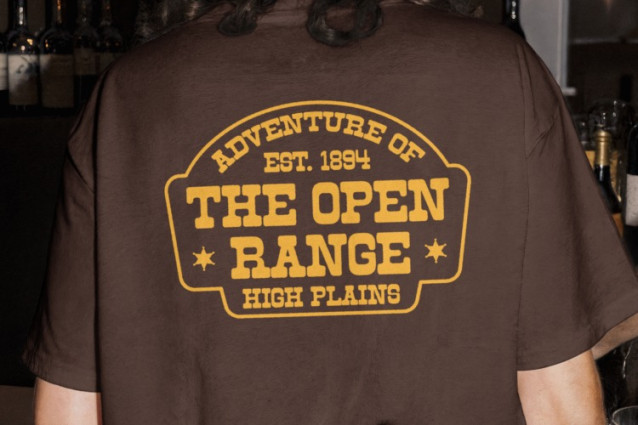
Buffaroa Font
Buffaroa Font is a sturdy and characterful retro slab serif typeface that channels the dependable, industrial spirit of 19th-century typography with a clean, contemporary refinement. Featuring solid, block-like serifs and hearty letterforms, it delivers a sense of durability, trust, and timeless confidence. This is a workhorse font with personality, built for impact and longevity. Designed for modern versatility, Buffaroa comes in both authoritative Regular and dynamic Italic styles, and includes comprehensive multilingual support, making it a truly global design asset. Perfect for brands that want to project strength and heritage—think breweries, artisan goods, editorial headlines, and branding for robust products—Buffaroa ensures your message stands firm and clear, with a touch of classic charm.